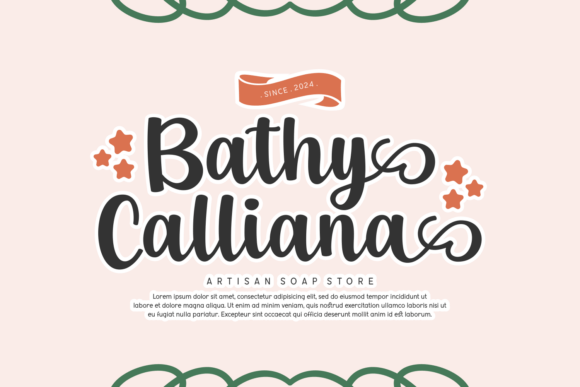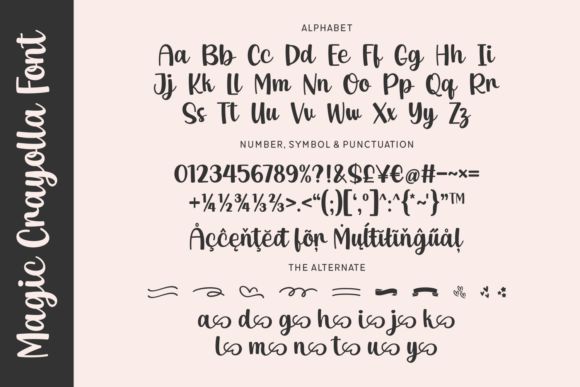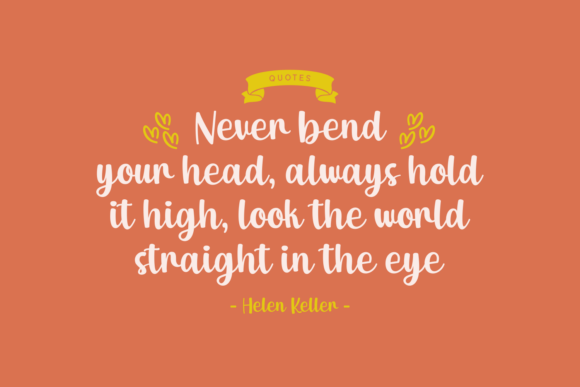
Introduction to Magic Crayolla Font
Magic Crayolla is a delightful and playful script font with a fun and youthful vibe.
Its bold strokes and charming handwritten style make it perfect for childrenโs projects, greeting cards, party invitations, or any creative design that needs a touch of whimsy Paired with bonus decorative elements, Magic Crayolla adds personality and cheer to your designs effortlessly.
Key Features of Magic Crayolla Font
Why Choose Magic Crayolla Font?
Magic Crayolla Font offers exceptional quality and versatility, making it a valuable addition to your design toolkit. Whether you’re creating for personal projects or commercial use, Magic Crayolla Font delivers professional results.